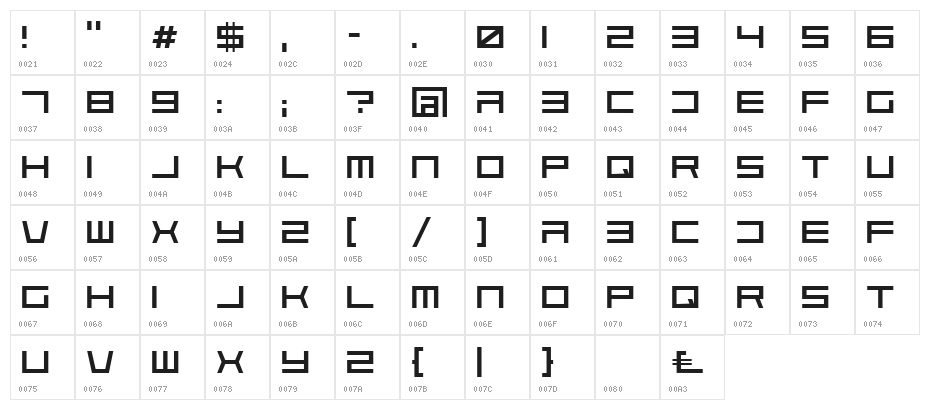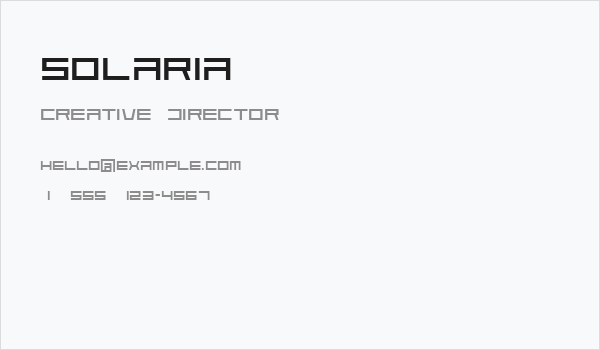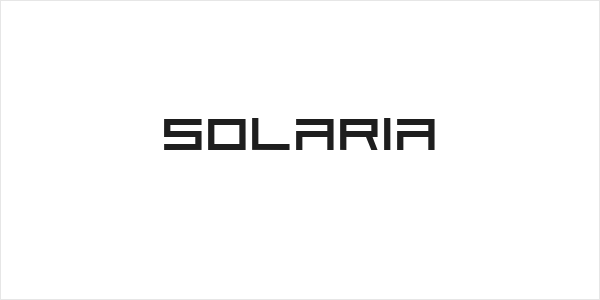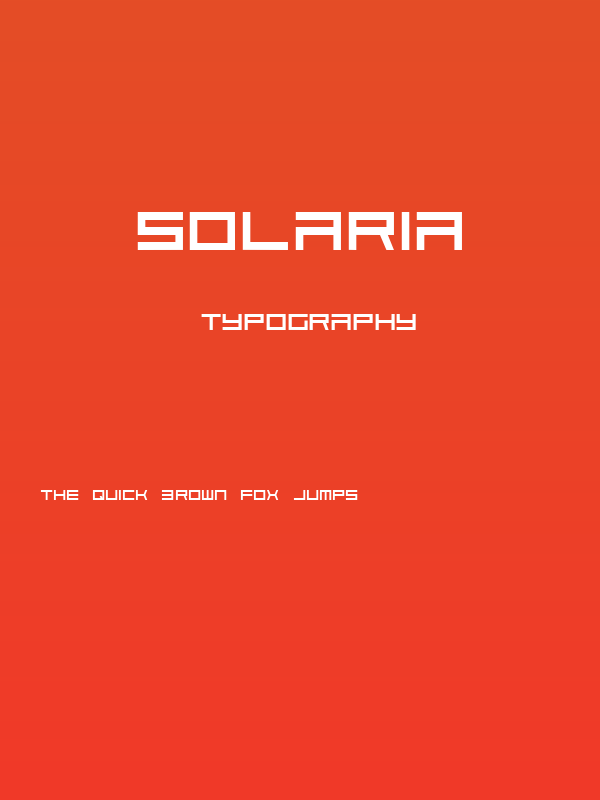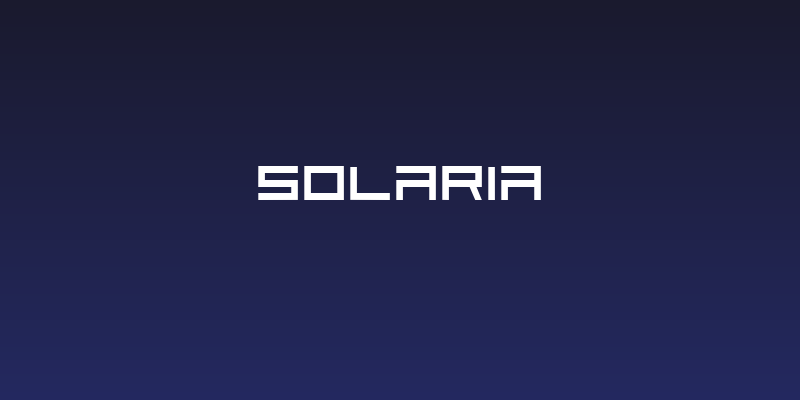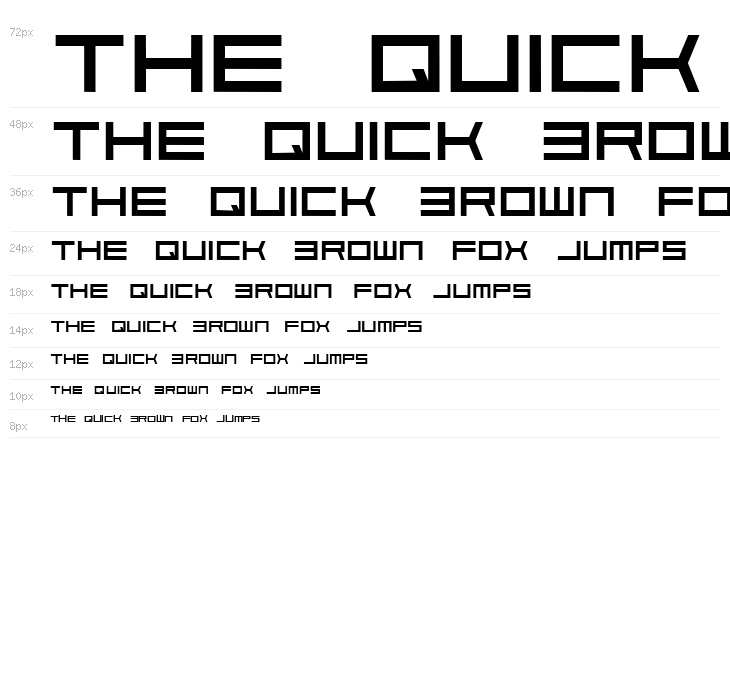
Solaria Font
Solaria Description
This font features a futuristic and geometric design, characterized by its blocky and angular letterforms. The uppercase and lowercase letters maintain a consistent height, creating a uniform appearance. The characters are constructed with straight lines and sharp angles, giving them a mechanical and digital feel. The numbers and special characters follow the same design principles, ensuring a cohesive look across all glyphs. The font's style is reminiscent of digital displays or sci-fi themes, making it suitable for projects that require a modern and tech-oriented aesthetic.
| Use Case | Headlines, Logos, Digital Interfaces |
| Proposed Projects | Ideal for tech-themed designs, digital interfaces, sci-fi posters, and video game graphics. |